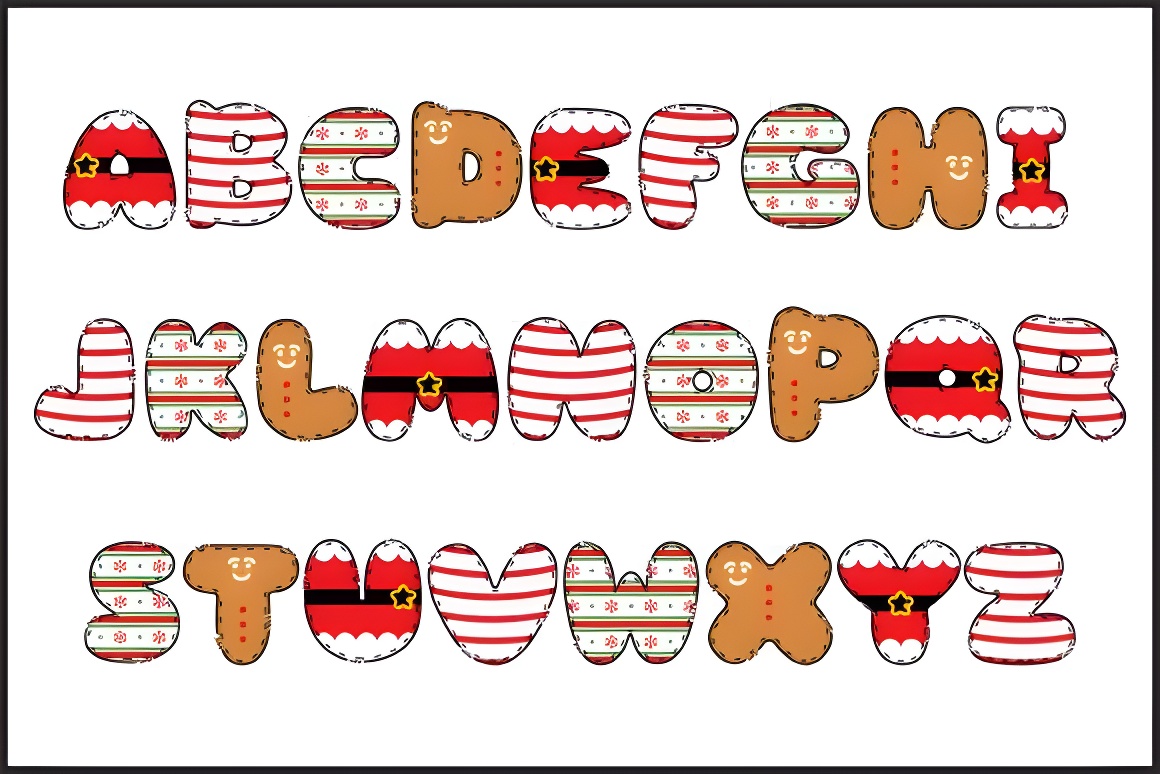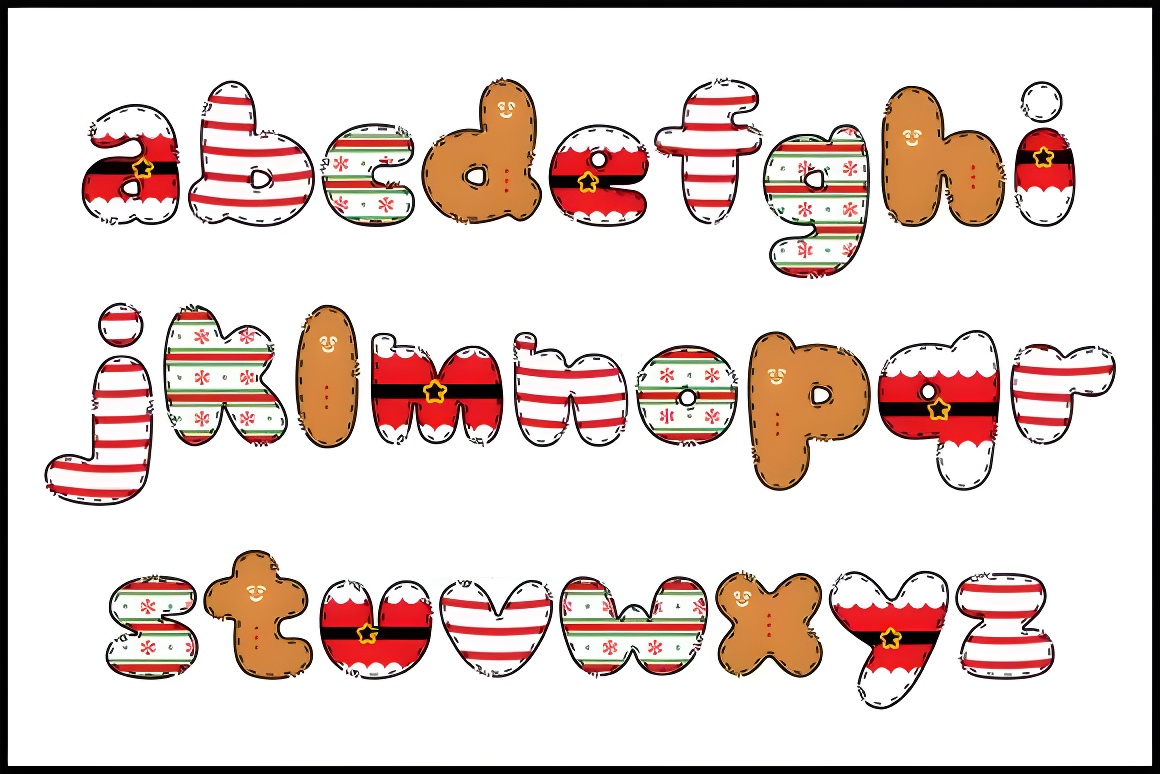
Festive Merry Christmas Font - Handwritten Holiday Design for Cricut & Cards
Whimsical holiday font for Cricut crafts, greeting cards, and festive designs. Black version supports all cutting machines; color version works in Photoshop/Illustrator. Ultimate Font Guide included.